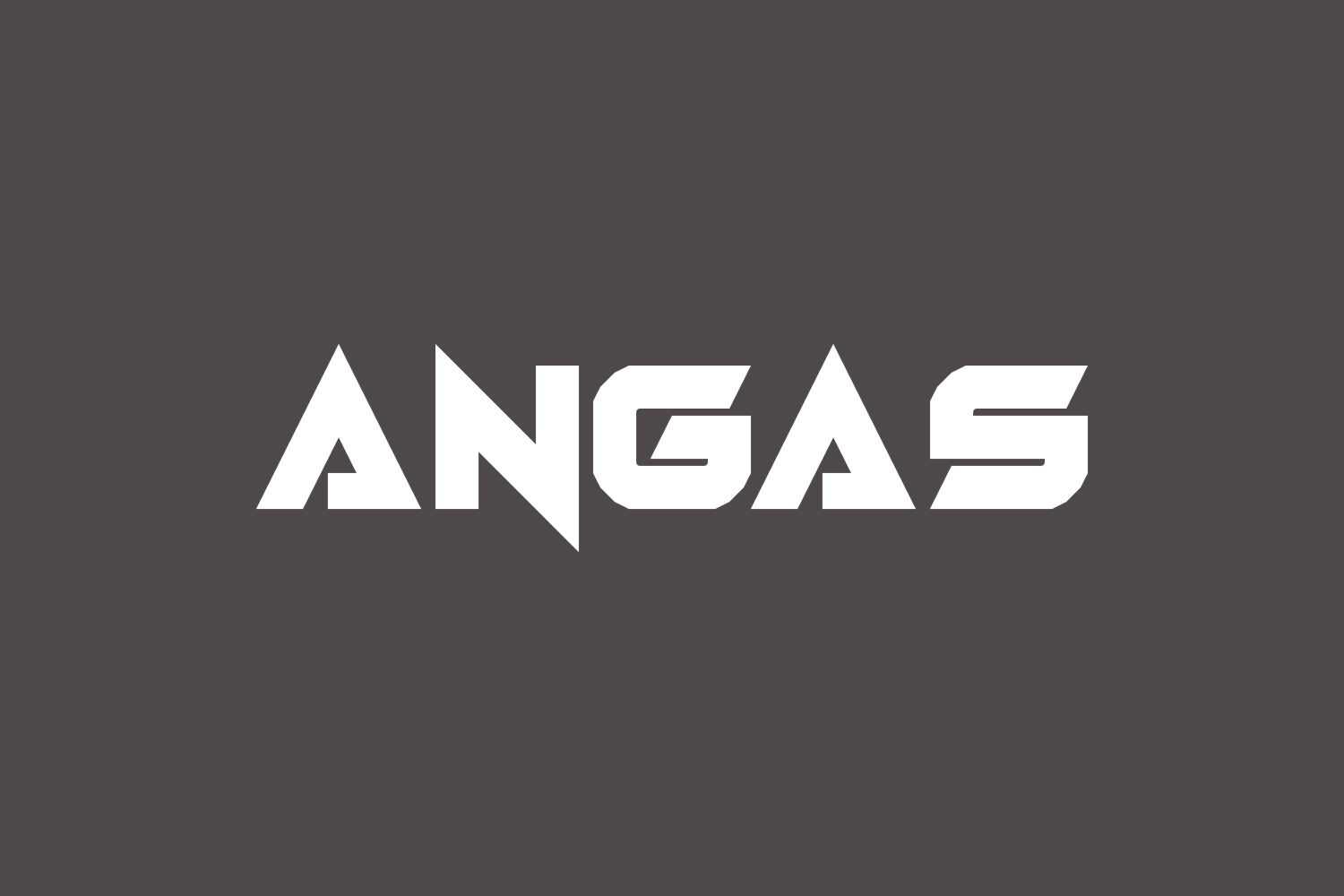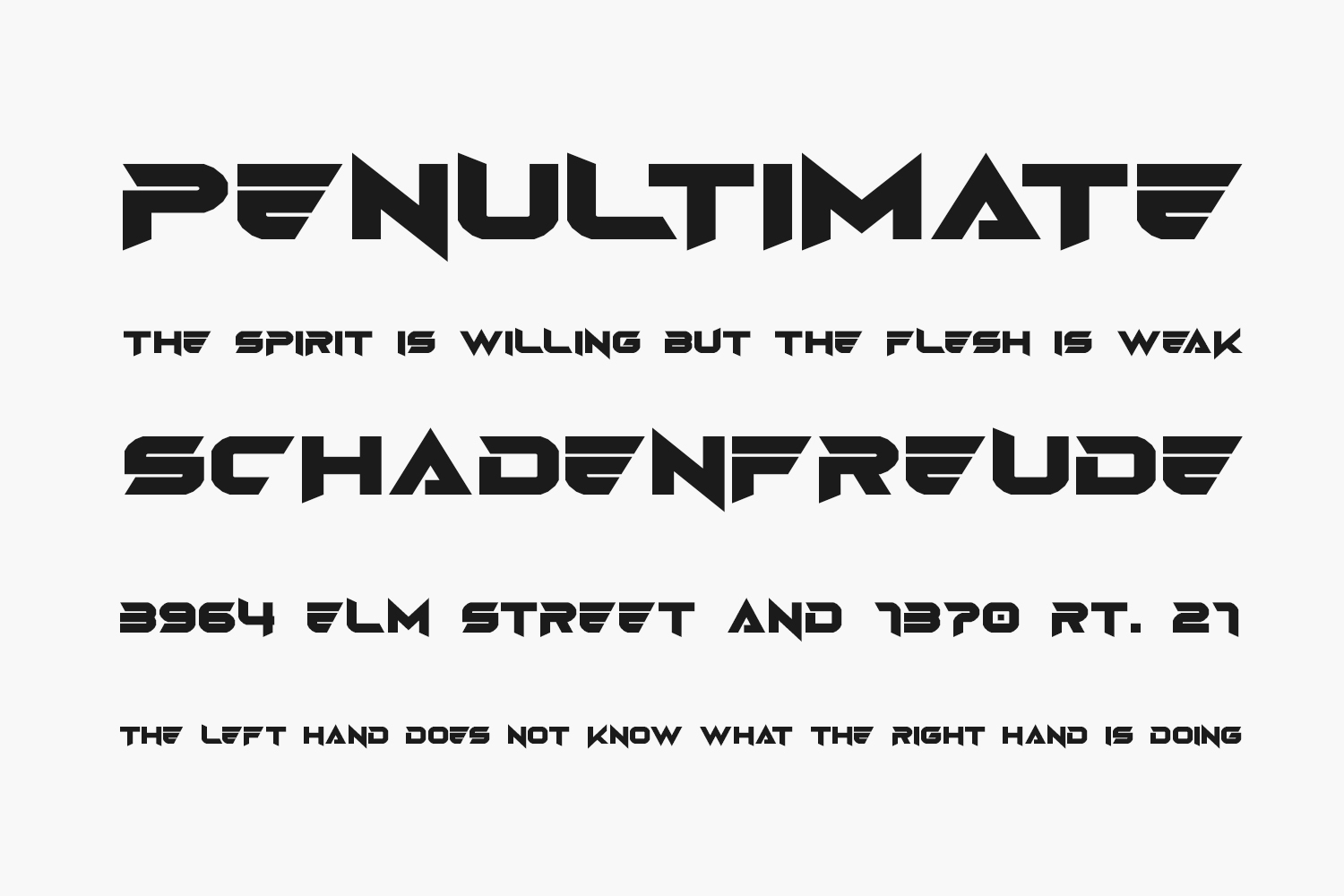
Introducing Angas Free Font Family, an extraordinary display font featuring a trendy, bold, and thick letter design. This captivating typeface is guaranteed to make a striking impact on any poster, flyer, or printed material. Unleash its potential in your futuristic design projects and discover the limitless possibilities it offers. Elevate your visuals with Angas and embark on a creative journey like never before. Angas Free Font Family is free for personal use only. Please purchase the full version for commercial use.
Designed by EyeCone